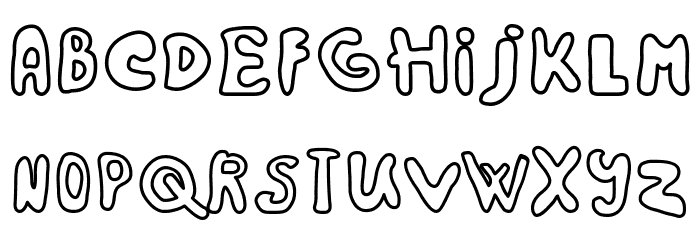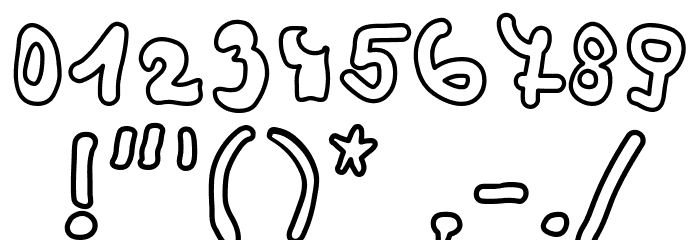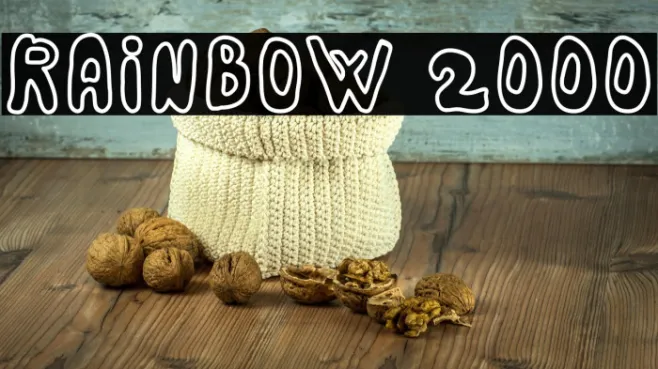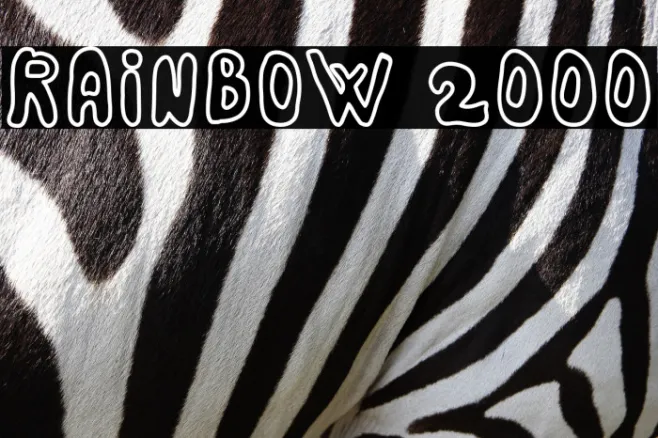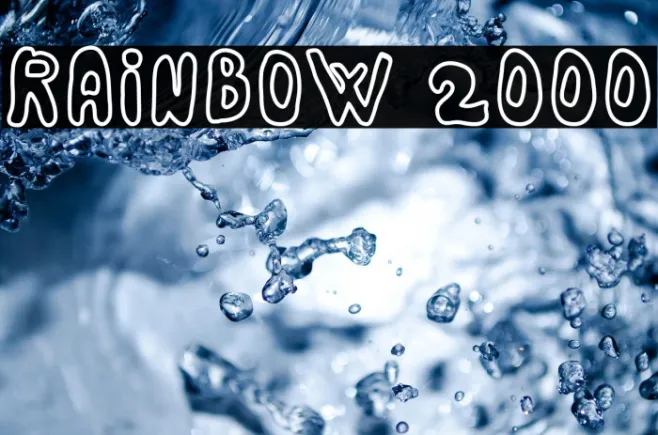
Rainbow 2000 Font
This playful and bold font features a unique outline style that gives it a cartoonish and whimsical appearance. The characters are rounded and slightly irregular, adding to its charm and making it stand out. The uppercase and lowercase letters maintain a consistent style, with a hand-drawn feel that is both approachable and fun. The numbers and special characters follow the same design principles, ensuring a cohesive look across all elements. This font is perfect for projects that require a touch of creativity and lightheartedness.
A playful, bold outline font with a cartoonish, hand-drawn style.
- Proposed Projects: Ideal for children's books, comic strips, playful branding, and creative posters.
- Overall Style: Playful, Whimsical